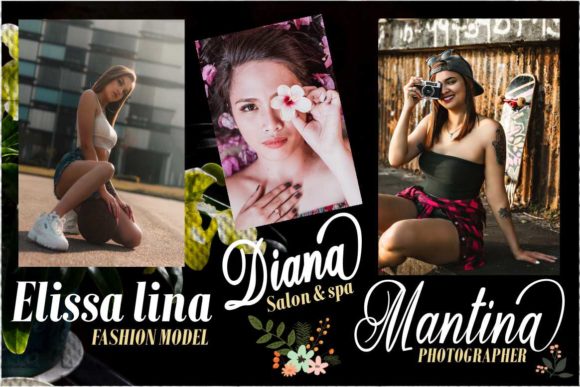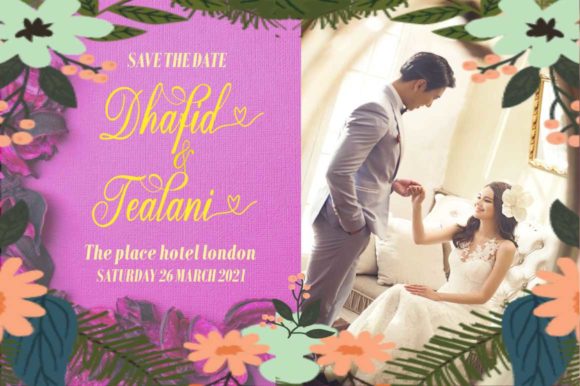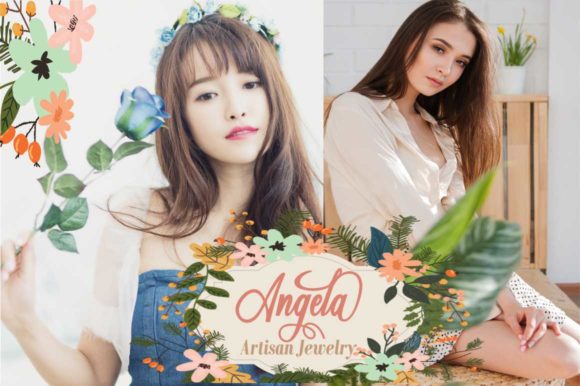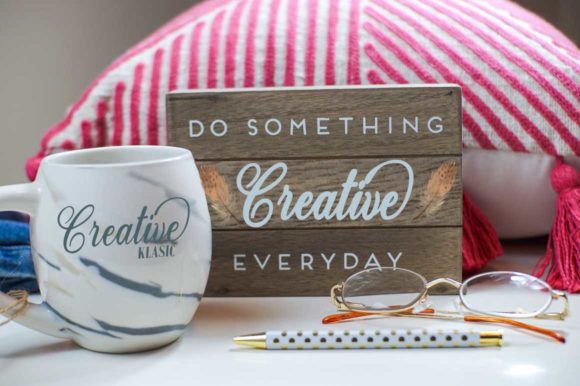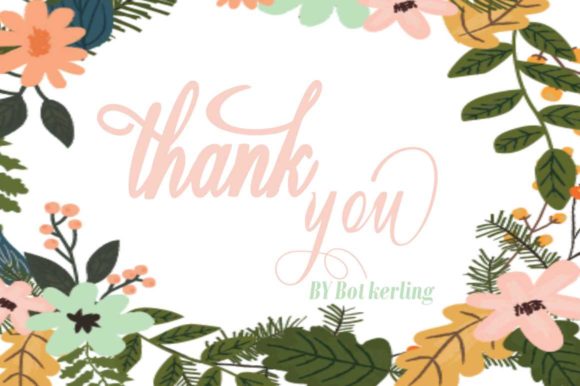
Introduction to Natural Fence Font
Have you ever found yourself sitting at your desk, surrounded by scribbled notes and sketches, searching for the perfect design element to elevate your creative project? For designers, the hunt for the perfect font can be a long and arduous process, but what if we told you that we’ve found the perfect addition to your design arsenal?
Enter the Natural Fence Font, a stunning modern calligraphy font that’s about to revolutionize the way you approach your design work. With its elegant, handwritten style and PUA encoding, this font is the ultimate design resource for any creative project.
Key Features of Natural Fence Font
- High-quality design resource ideal for creative projects, including home decor, gardening, and outdoor designs.
- Comes with a transparent background, allowing for easy customization and layering in design software.
- Unique characteristics include a natural, earthy feel and a subtle texture, adding depth and visual interest to designs.
- Perfect for designers seeking a high-quality, creative font to enhance their designs without breaking the bank.
Honest Review: Natural Fence Font
I recently stumbled upon the Natural Fence Font, and I must say, it’s a beautiful addition to any design project. The font is free to download, making it a valuable resource for designers looking to add some personality to their work.
What works well is the font’s natural, hand-drawn feel, which makes it perfect for creative projects that require a personal touch. The transparent background option allows for seamless integration with any design element, giving you full control over the design process.
Here are some key features that make Natural Fence Font a great design resource:
- High-quality design that’s perfect for print or digital use
- Transparent background option for easy design integration
While the Natural Fence Font is a great resource, there are a few limitations to consider:
- ⚠️ Limited font styles and sizes may limit its use in more complex designs
- ⚠️ Some users may find the font’s hand-drawn feel too casual for formal projects
Overall, I’m impressed with the Natural Fence Font. Its unique design and high-quality feel make it a great addition to any design project. If you’re looking for a creative and versatile font, this is definitely worth checking out.
How to Use Natural Fence Font
The Natural Fence Font is a high-quality design resource ideal for creative projects requiring a unique and rustic touch. This font features a transparent background, making it easy to customize and use in various design applications.
Getting the Most Out of It
For optimal results, use the Natural Fence Font in conjunction with a distressed or vintage design style. This font is particularly well-suited for outdoor-themed projects, such as garden designs or park signage.
The Natural Fence Font is commonly used in:
- Outdoor-themed designs.
- Rustic or vintage-inspired projects.
- Designs requiring a unique and natural touch.
Alternatives to Natural Fence Font